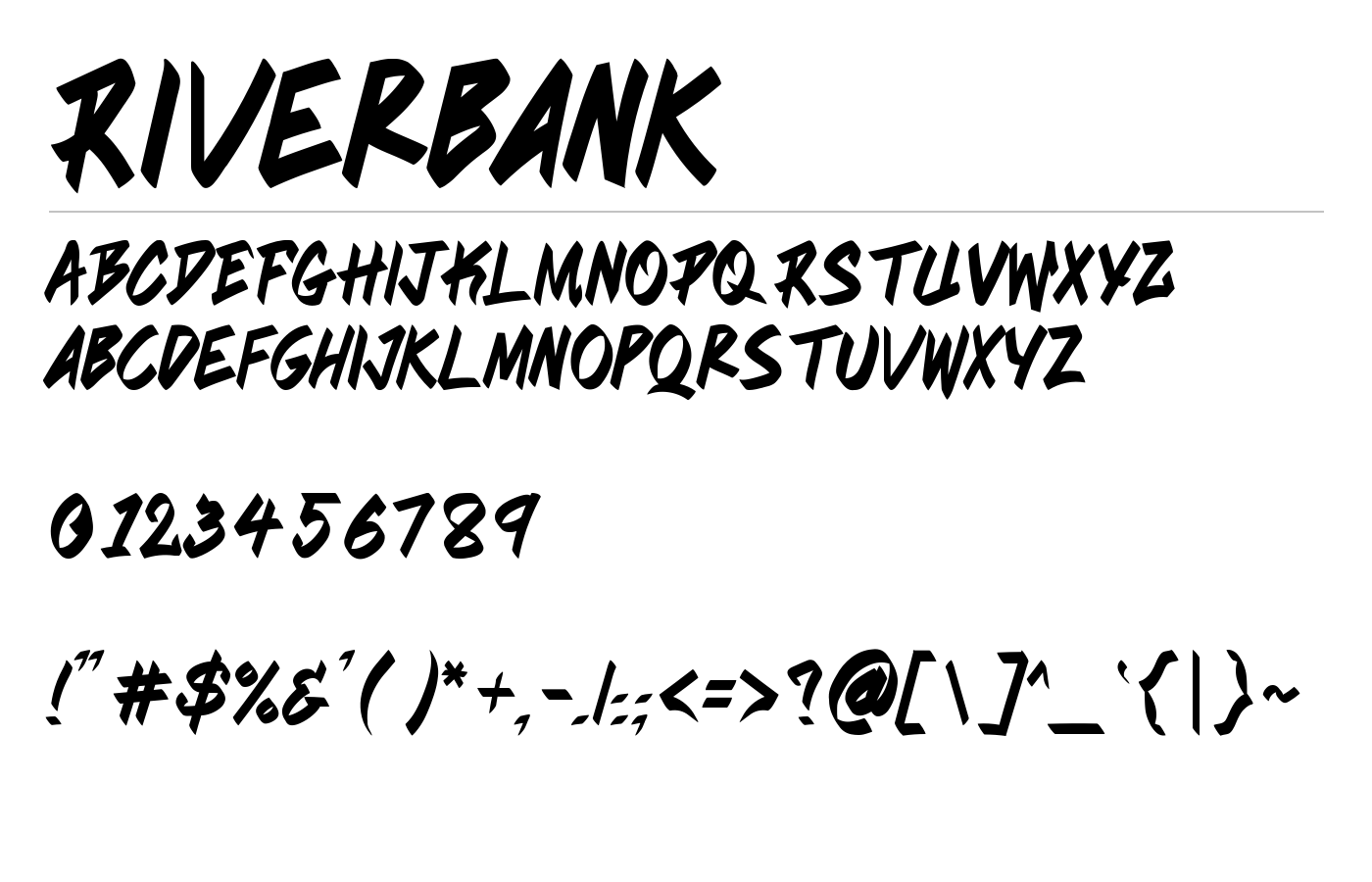
Riverbank is a bold, energetic sans serif font with a dynamic, hand-drawn brush style that conveys a youthful and adventurous spirit. Its sharp, angular strokes and irregular shapes give it a unique, playful character, making it ideal for eye-catching headlines, logos, and designs that aim for a vibrant, informal feel. This font works best in creative projects where personality and impact are key, such as posters, branding, and digital media.
Riverbank Font
About Riverbank Font